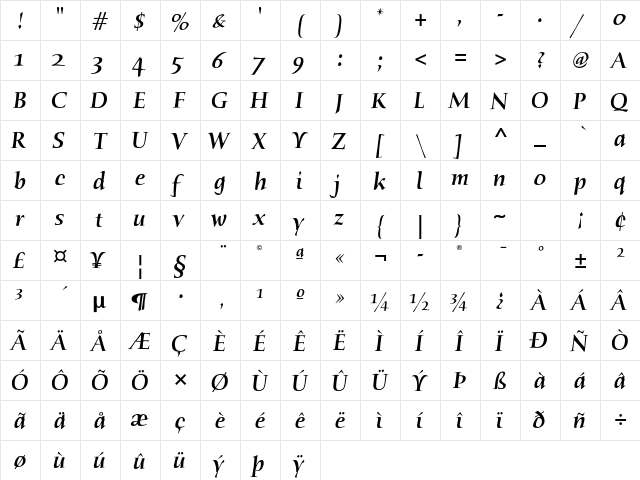
Humana Serif ITC Std Medium Italic
| Designer | Timothy Donaldson |
Design Context for Humana Serif ITC Std Typeface
Humana Serif ITC Std carries the refined structure of traditional serif typography, with bracketed terminals and considered proportions that communicate credibility and craft. The slanted form adds forward momentum and visual energy.